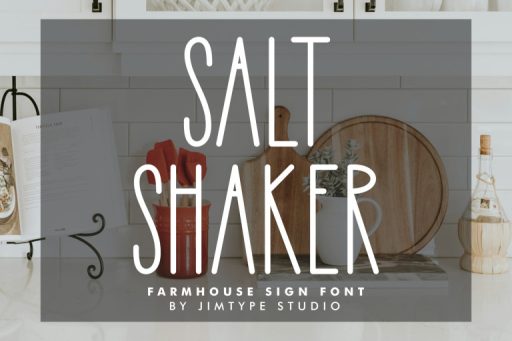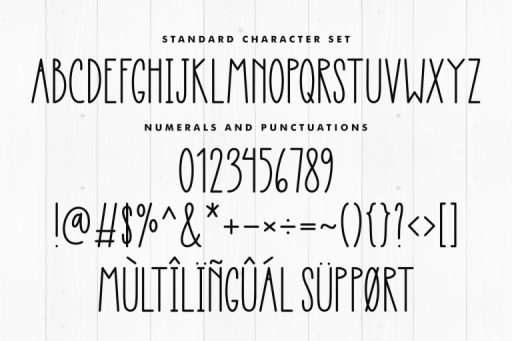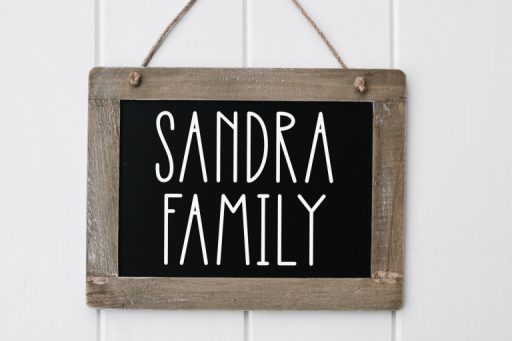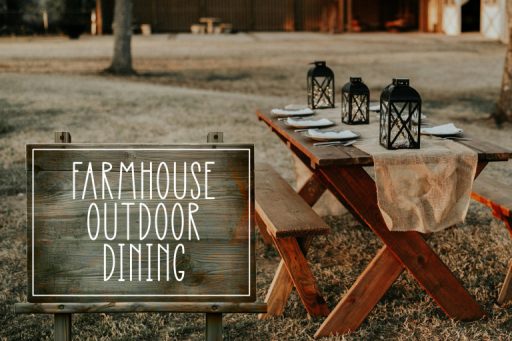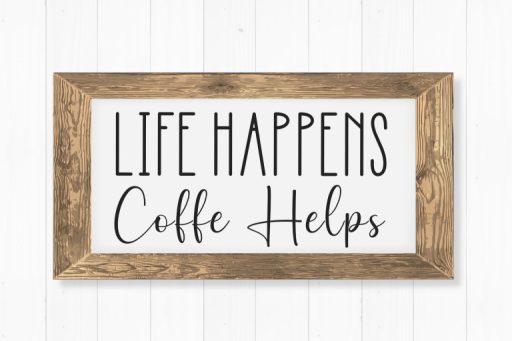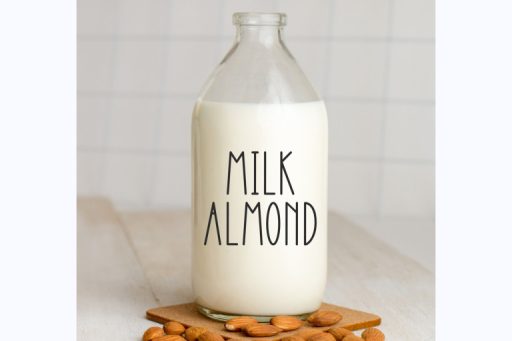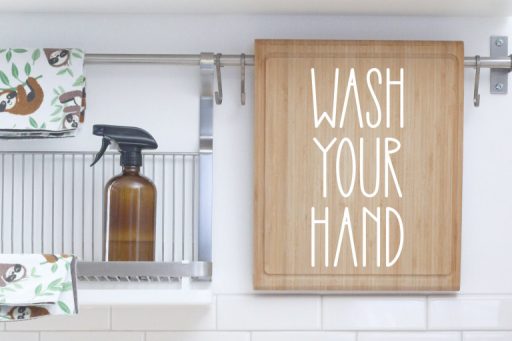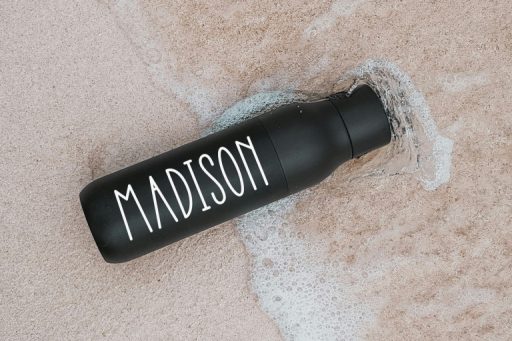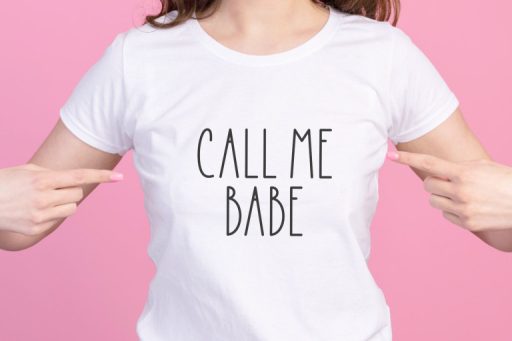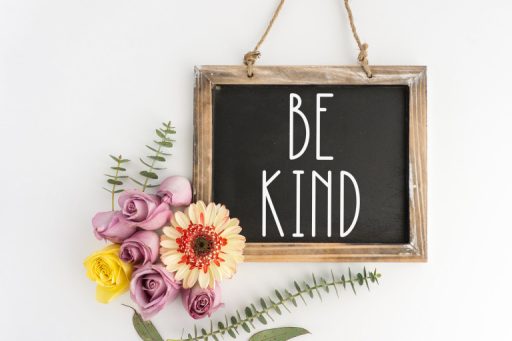
Salt Shaker Font - Tall and Skinny Font from Jimtype Studio
Salt Shaker Font
Salt Shaker – Tall and Skinny Font from Jimtype Studio
Transform your designs into a rustic masterpiece with Salt Shaker, a farmhouse-inspired font that effortlessly blends the charm of farmhouse aesthetics, sign design, and a touch of framed elegance.
Craft authentic and eye-catching signs with Salt Shaker. Its design captures the essence of traditional signage, making it perfect for creating captivating visuals that stand out.
Whether you’re creating kitchen signs, farmhouse decor, or personalized projects with cutting machines, Salt Shaker Font is your go-to choice for adding a rustic touch with a hint of framed sophistication. Transform your designs with the charm of farmhouse aesthetics.